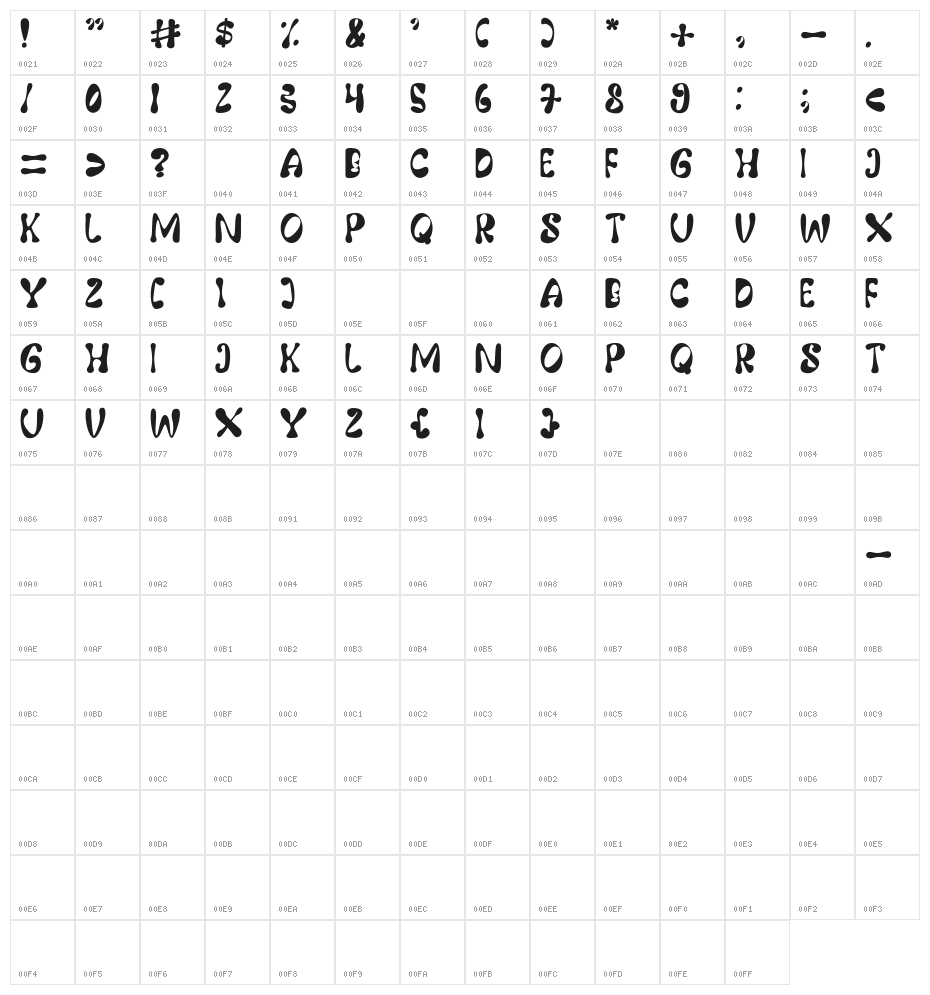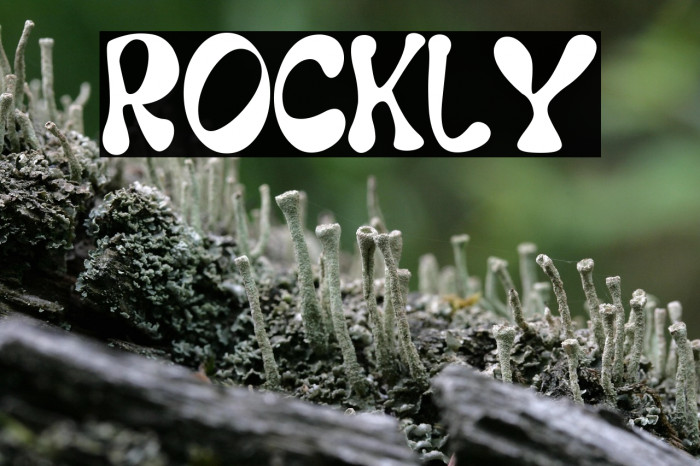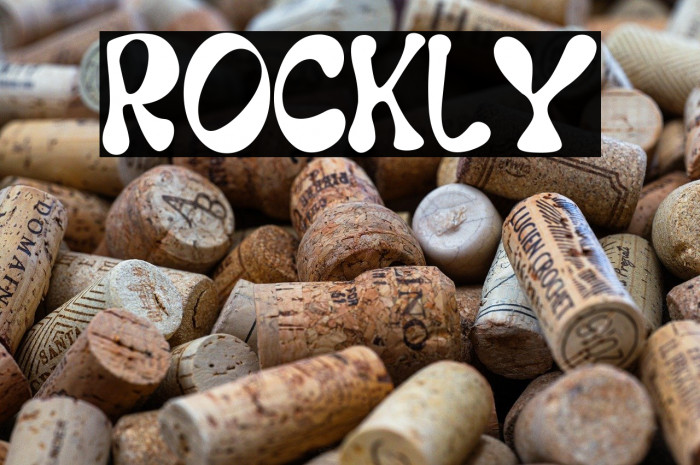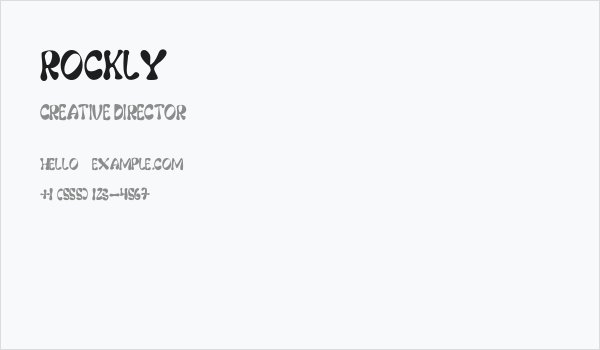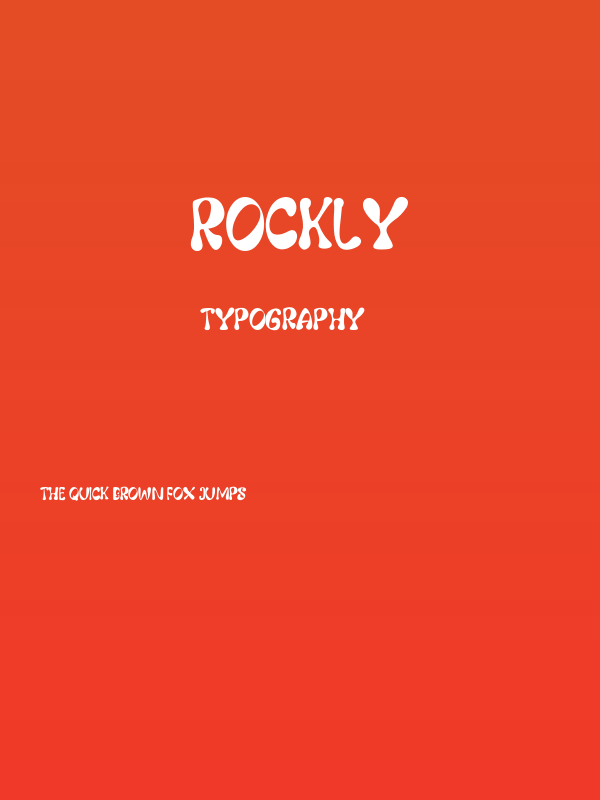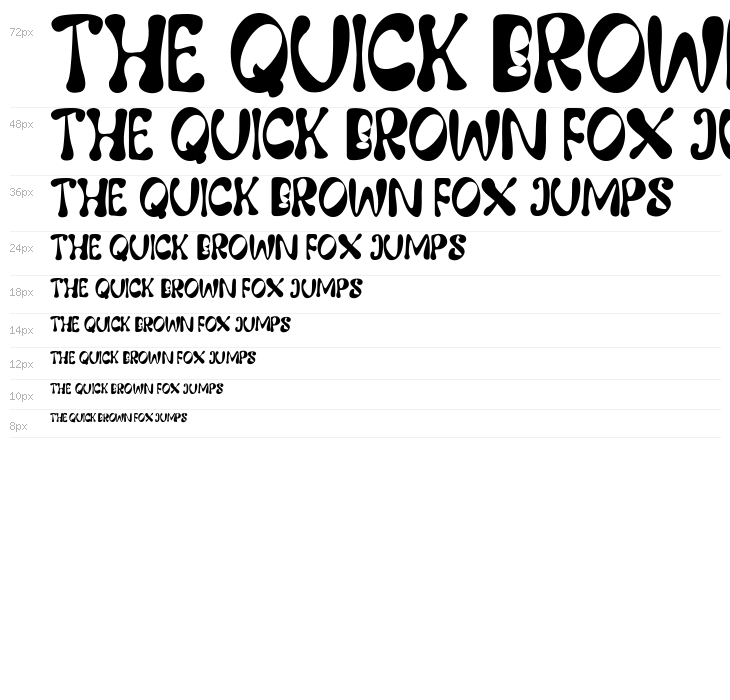
Rockly Font
Rockly Description
This font features a bold and playful design with a unique, bubbly appearance. The characters are rounded and have a whimsical, almost cartoon-like quality. The strokes are thick and consistent, giving it a strong presence. The font's playful nature is emphasized by its exaggerated curves and loops, making it stand out in any design. It's perfect for projects that require a fun and energetic vibe, such as children's books, playful branding, or creative posters.
| Proposed Projects | Ideal for children's books, playful branding, creative posters, and any design needing a fun, energetic vibe. |